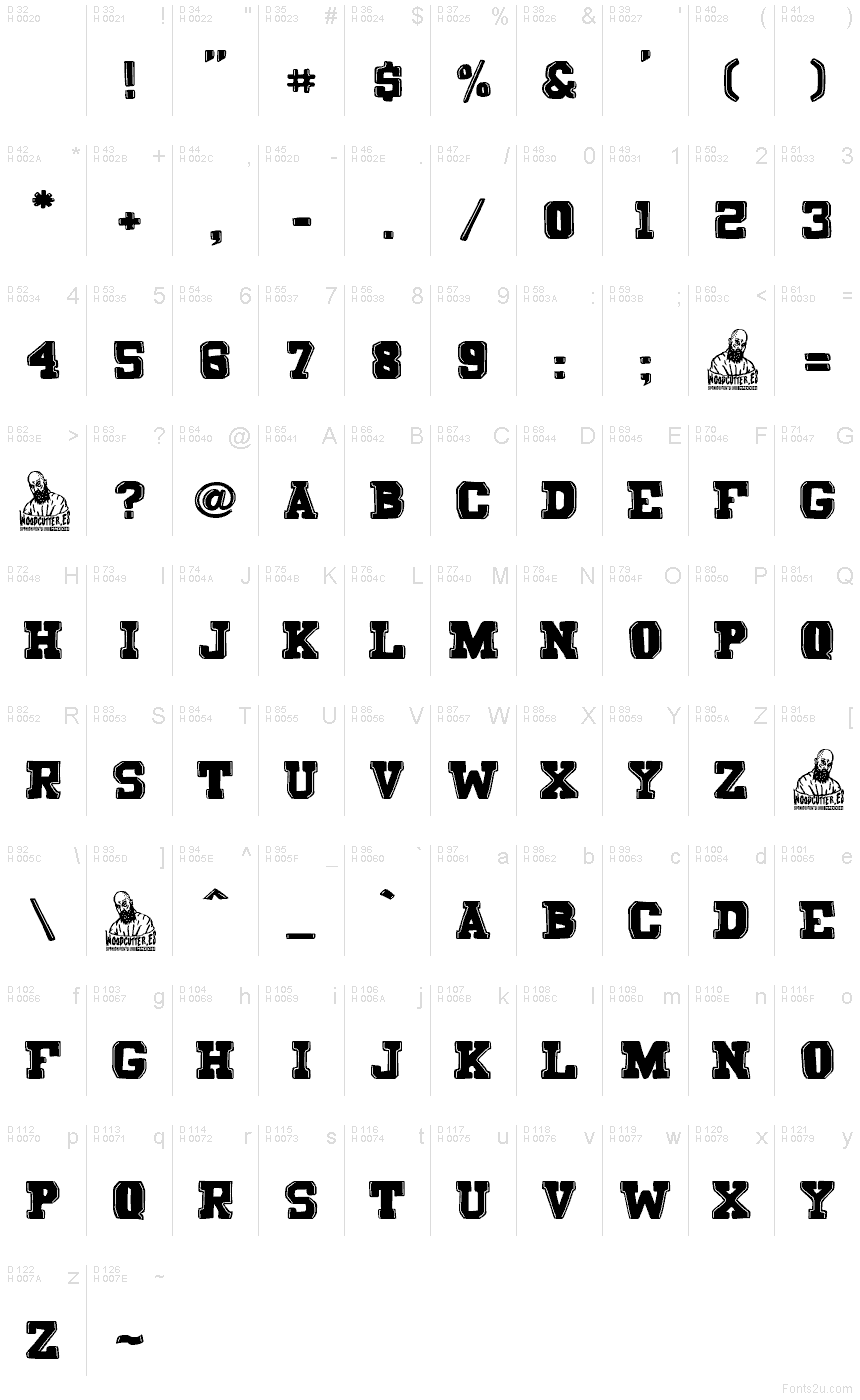
Deportivo Nacional
Deportivo Nacional font by Woodcutter is a free bold old-school display font. Built like vintage stadium lettering, it carries chunky slab serifs, squared shoulders, and tight, drumbeat rhythm that feels stamped and solid. The strokes are dense and slightly compressed, giving headlines that classic athletic bite without turning clunky. It reads like ink rolled over woodtype—robust, gritty, and proudly loud.
Using Deportivo Nacional, your graphics snap into a sports-era groove—think game-day posters, team logos, pennants, ticket stubs, scoreboard graphics, or retro merch tags. The compact spacing drives impact, while the blocky forms hold up at distance. This free font shines on banners and social promos; pair it with a clean grotesk sans for stats or dates, and add a touch of tracking at larger sizes.